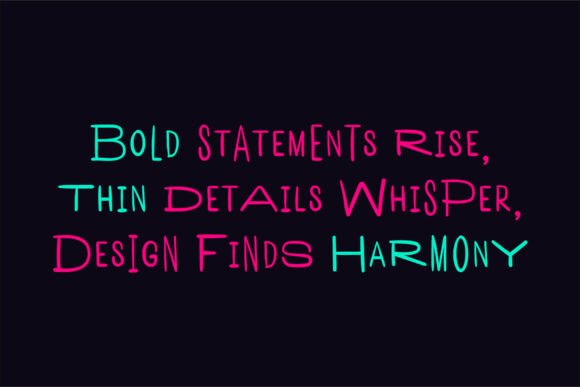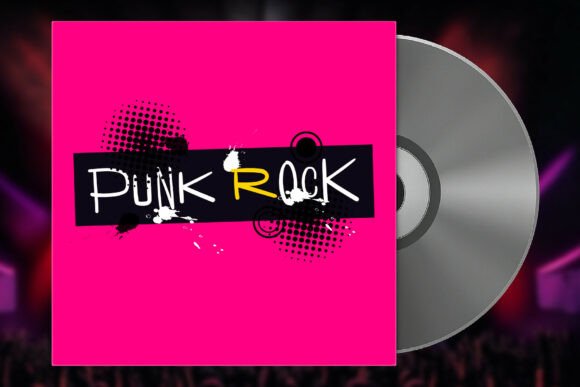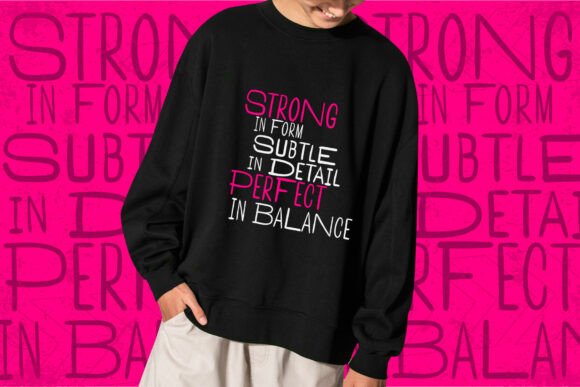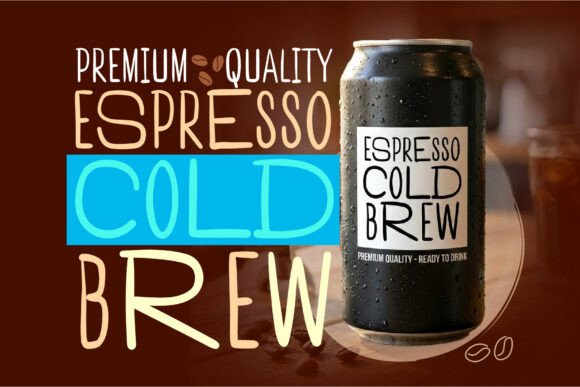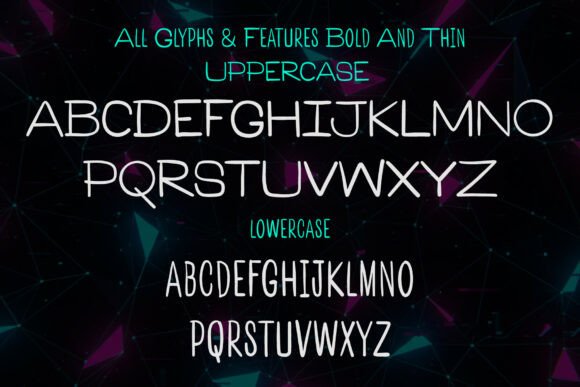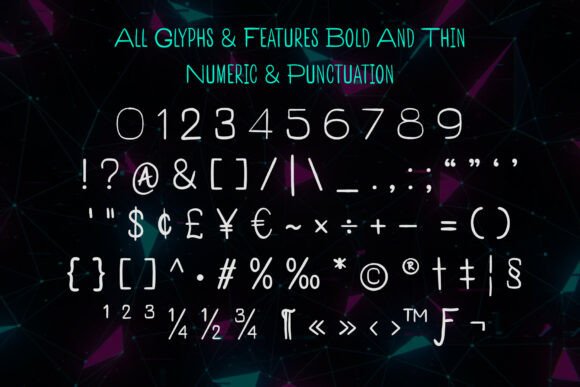
The Birth of a New Era in Typography
Have you ever been stuck in a creative rut, staring at a blank canvas, desperate for the perfect font to bring your vision to life? That’s exactly where I was, until I discovered the Bold and Thin Font. This game-changing display font has been the missing piece I never knew I needed, and I’m excited to share its story with you.
Designed to make a statement, the Bold and Thin Font is a masterful blend of bold strokes and delicate lines, perfect for designers who crave a font that’s both confident and refined. With its striking display styles, this font is an absolute must-have for any creative looking to elevate their designs and leave a lasting impression.
Whether you’re a seasoned pro or just starting out, the Bold and Thin Font is an invaluable addition to any designer’s toolkit, offering a level of versatility and sophistication that’s hard to find in a single font. Get ready to take your designs to the next level with this bold and beautiful new font.
Bold and Thin Font Key Features
- Weight and Style: Characterized by its bold and thin strokes, this font features a unique contrast between thick and thin lines, making it perfect for headings and titles.
- Language Support: The Bold and Thin Font supports a wide range of languages, including Latin, Cyrillic, and Greek alphabets, making it suitable for international use.
- Kerning and Ligatures: The font includes advanced kerning and ligature features, ensuring seamless spacing and connection between characters for professional-looking typography.
- Vector and Scalable: As a vector font, the Bold and Thin Font can be scaled up or down without losing its clarity or quality, making it ideal for digital and print applications.
Designer Review: Bold and Thin Font
Overall, I think the Bold and Thin Font is a unique and interesting choice. Here are some of its standout features: ✨
- Distinctive style: The font’s bold and thin contrast really makes it stand out, especially in larger text sizes.
- Good legibility: Despite its bold appearance, the font is still easy to read, even at smaller text sizes.
- Wide compatibility: The font works well across a range of devices and platforms, including desktop and mobile.
However, there are also some limitations to consider: ⚠️
- Limited character set: The font’s character set is not as comprehensive as some other fonts, which can make it difficult to use in certain situations.
- Not ideal for body text: While the font works well for headings and titles, it may not be the best choice for body text, where readability is key.
Overall, I think the Bold and Thin Font is a great choice for projects where you want to make a bold statement. Just be aware of its limitations and use it thoughtfully.